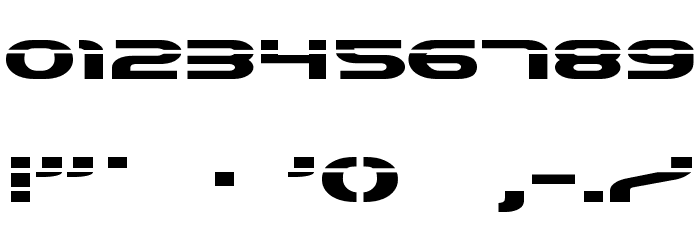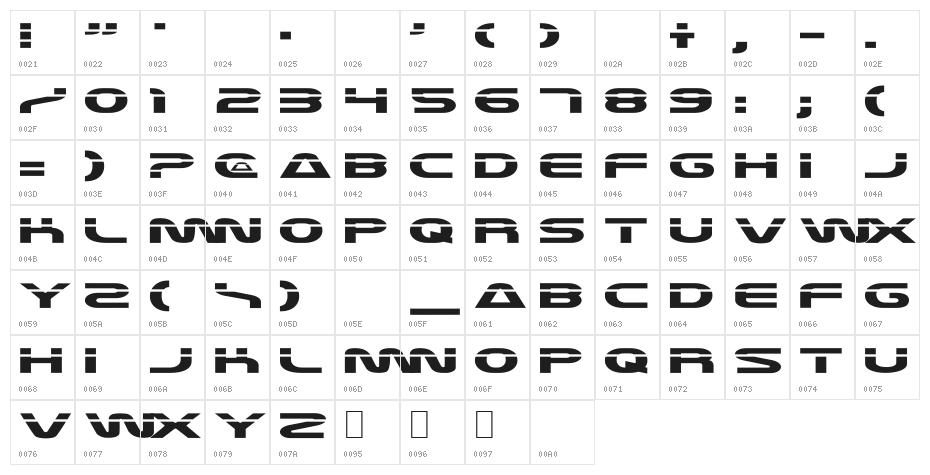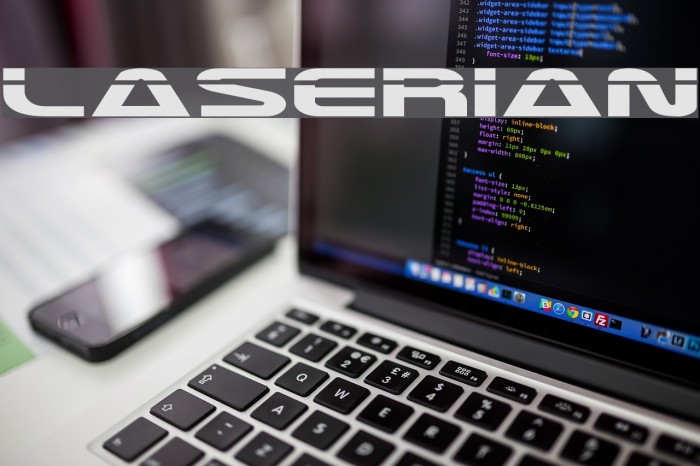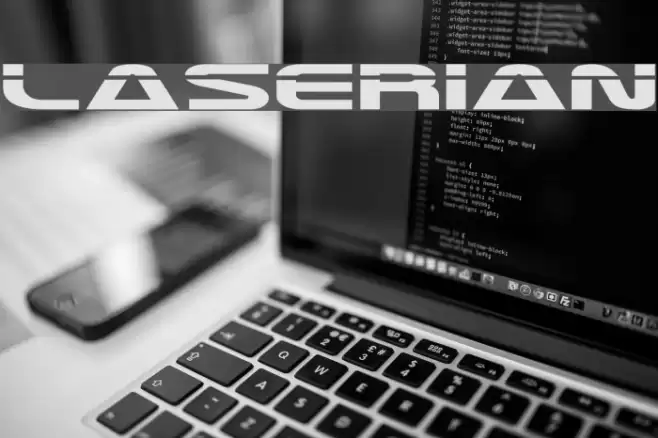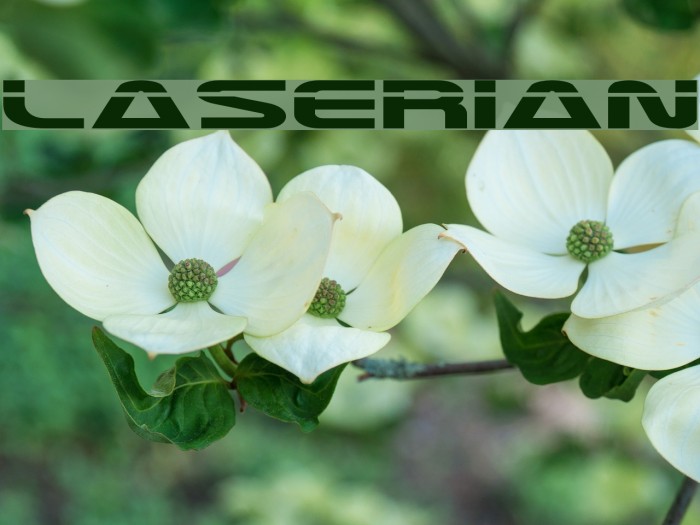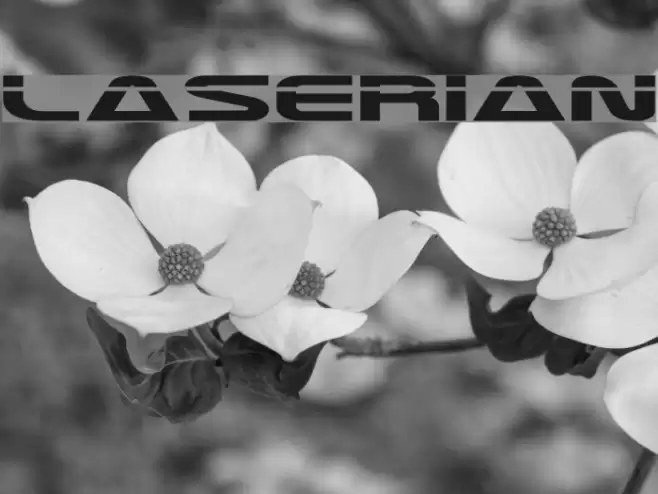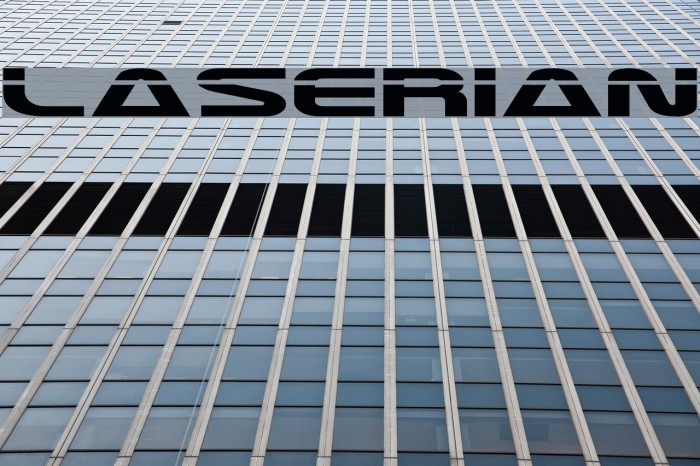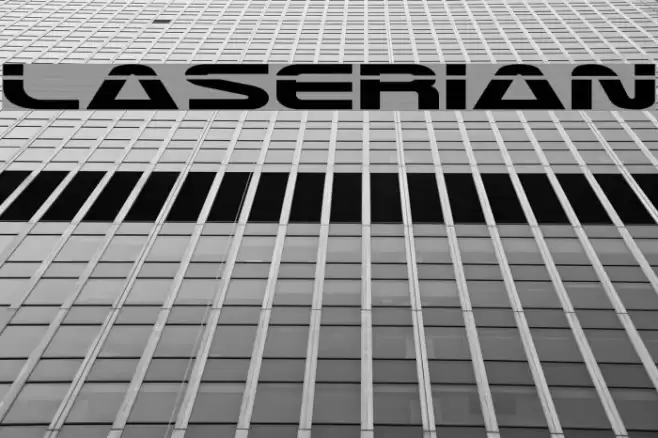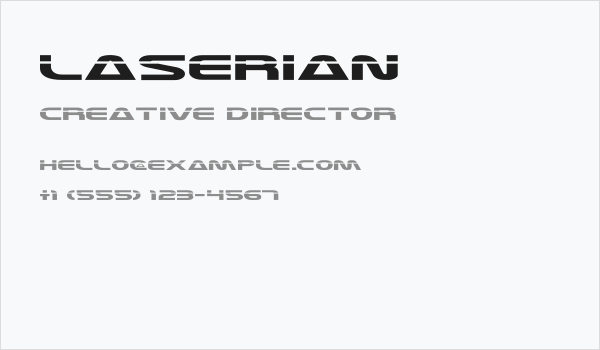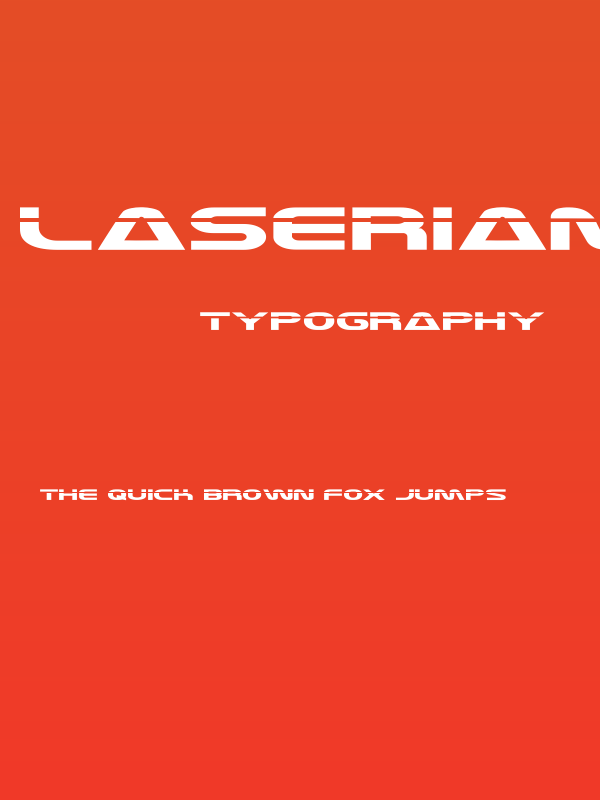
Laserian Font
Laserian Description
This font features a futuristic and geometric design with a distinct stencil-like appearance. The characters are bold and angular, with sharp edges and cut-out sections that give it a unique, modern look. The uppercase letters are particularly striking, with a consistent height and width that create a uniform appearance. The numbers and special characters follow the same design principles, ensuring a cohesive style throughout. This font is ideal for projects that require a bold and innovative aesthetic, such as technology branding, sci-fi themes, or modern digital interfaces.
| Proposed Projects | Ideal for technology branding, sci-fi themes, modern digital interfaces, and innovative design projects. |